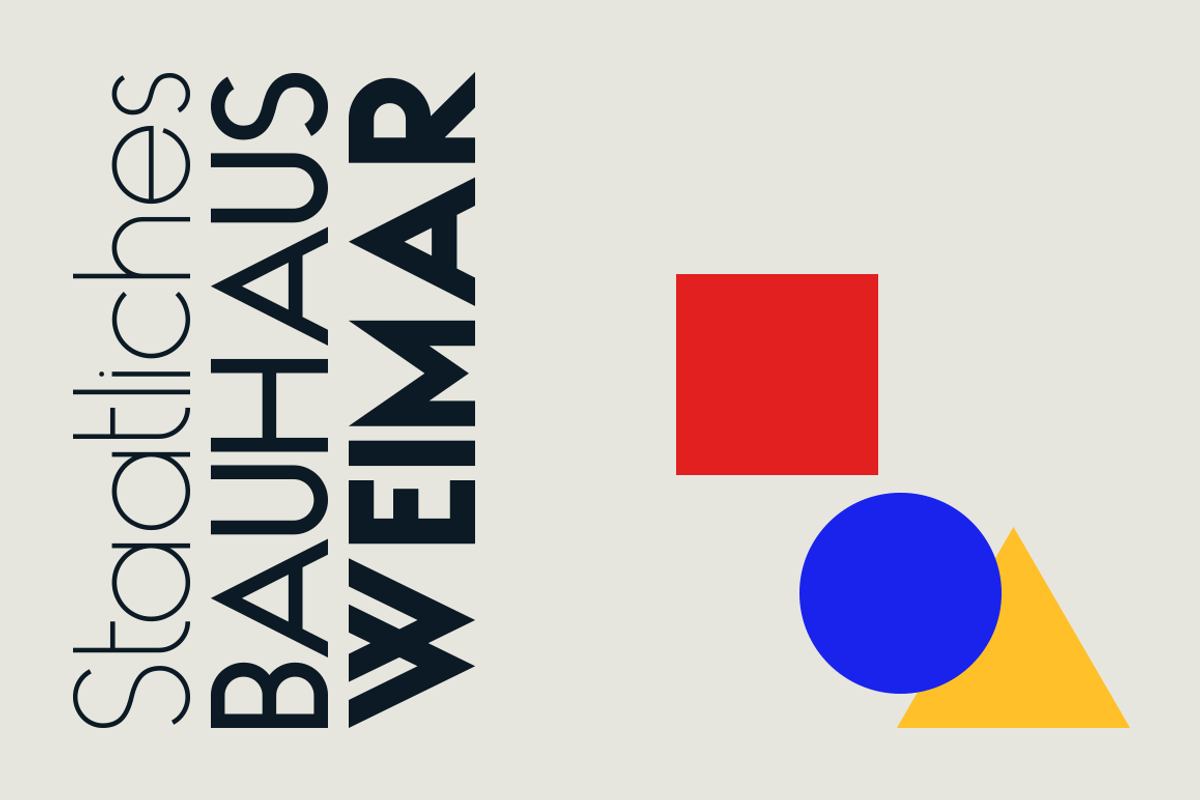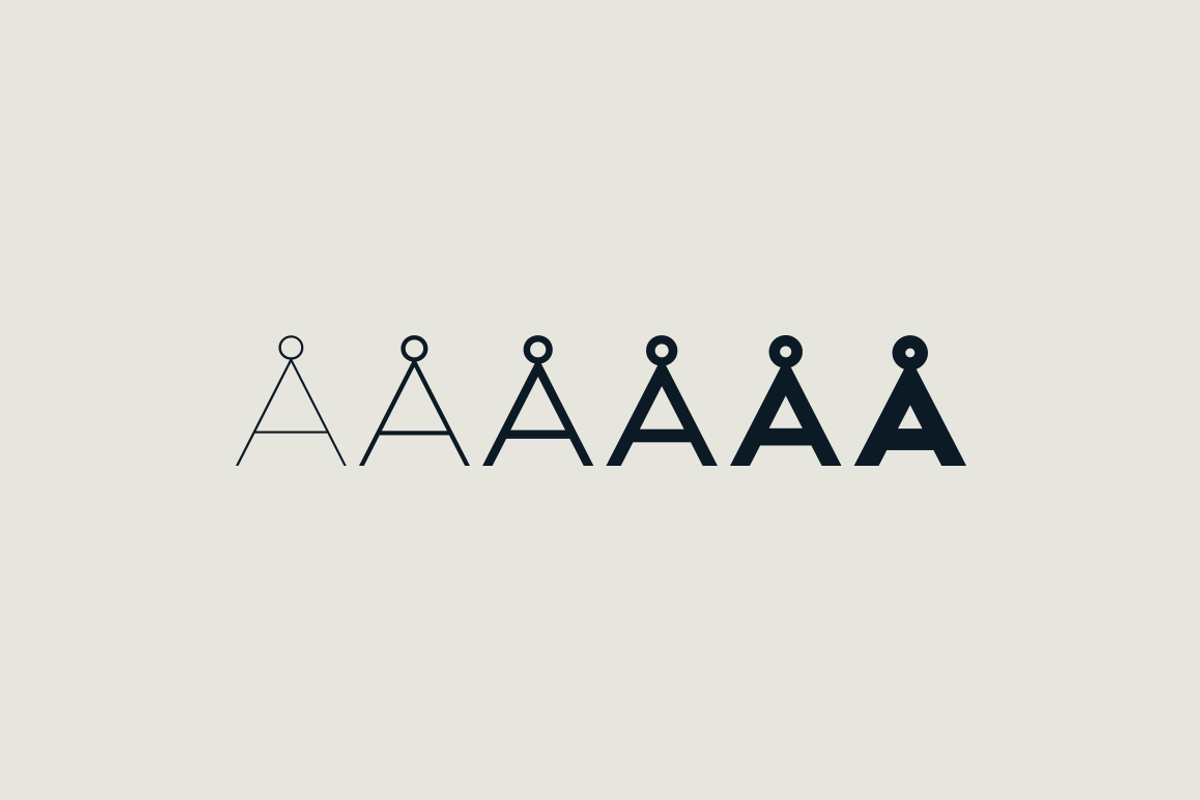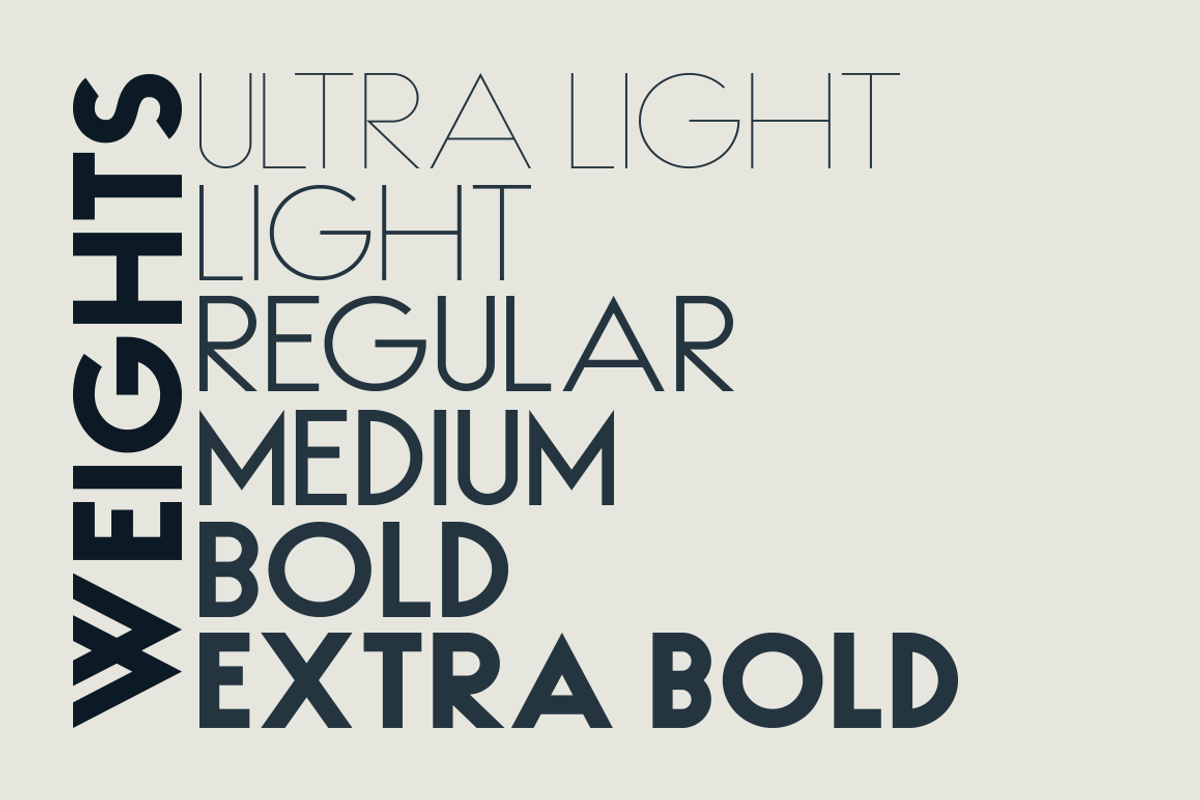
Haus Font
HAUS Sans is my first sans-serif experiment, inspired by Bauhaus and historical grotesk typefaces of the 1930s. Available in 6 weights, from “Ultra Light” to “Extra Bold” regular and italic versions. The font includes 389 glyphs, with subscripts, superscripts, ligatures and support almost all latin alphabets:
Haus font preview — sample text
Haus font alphabet, numbers and glyphs
Haus font style preview